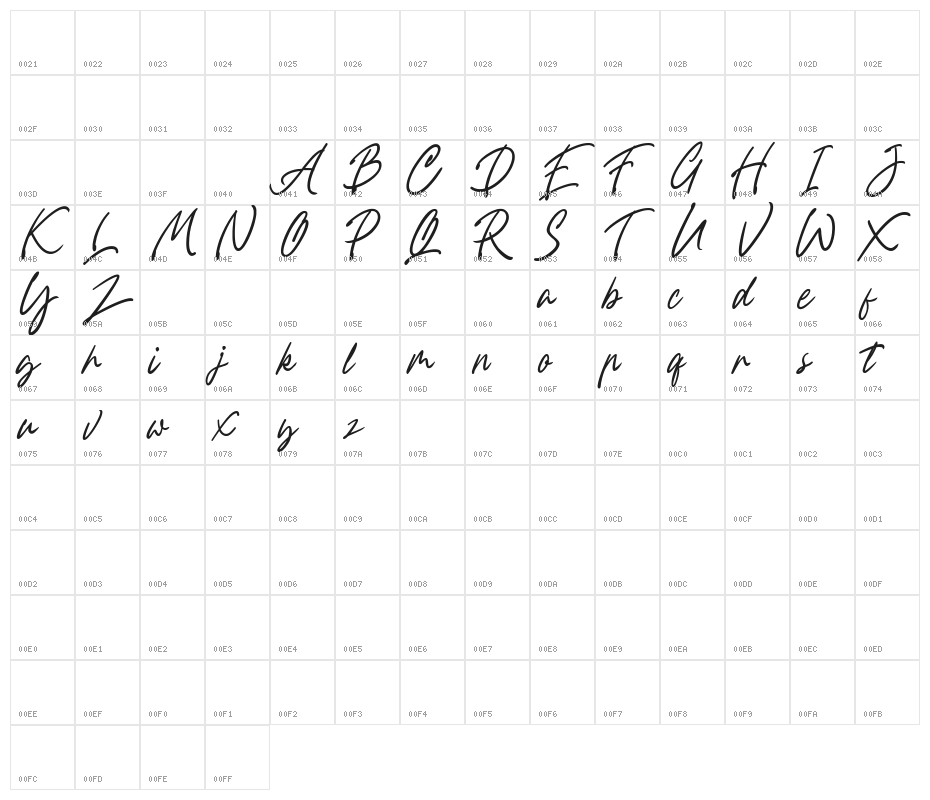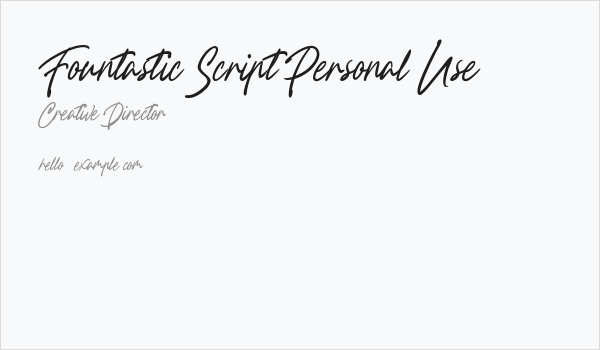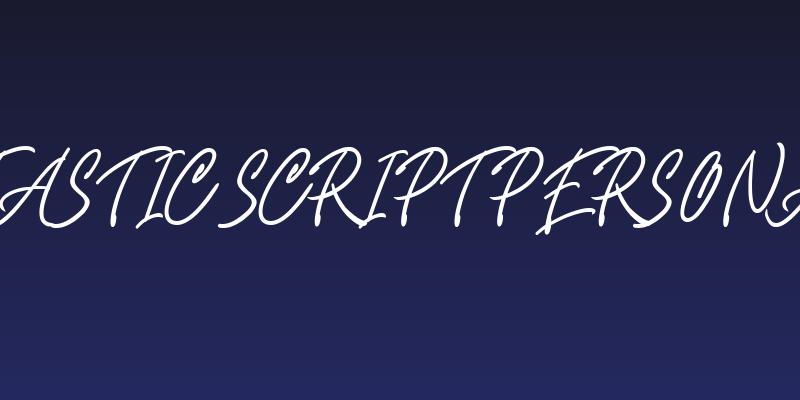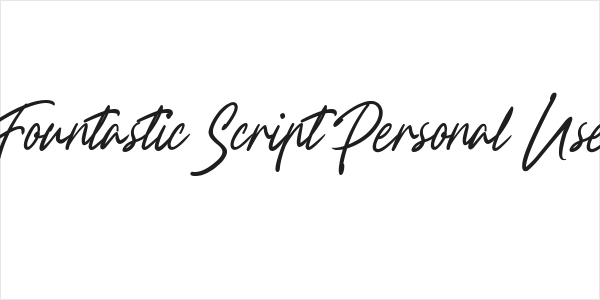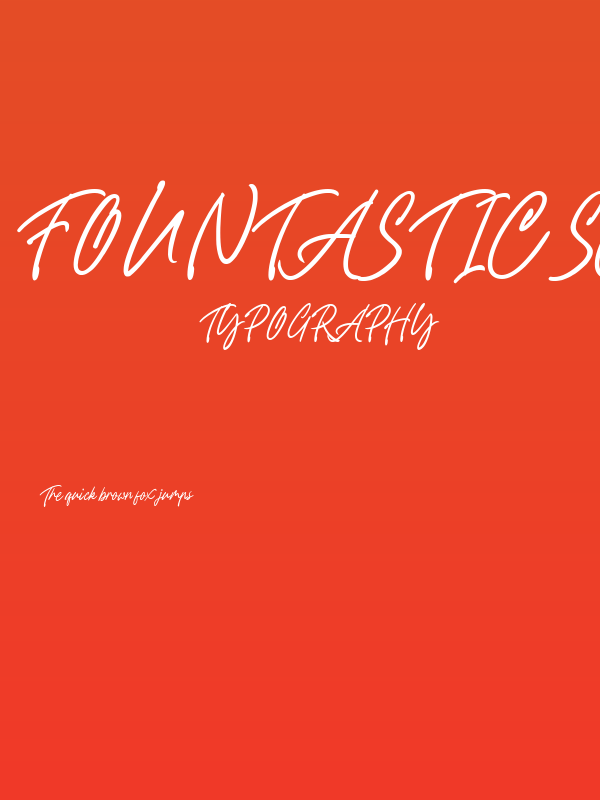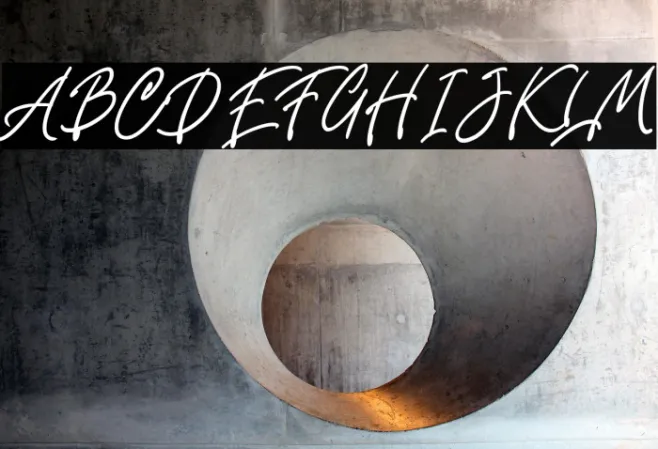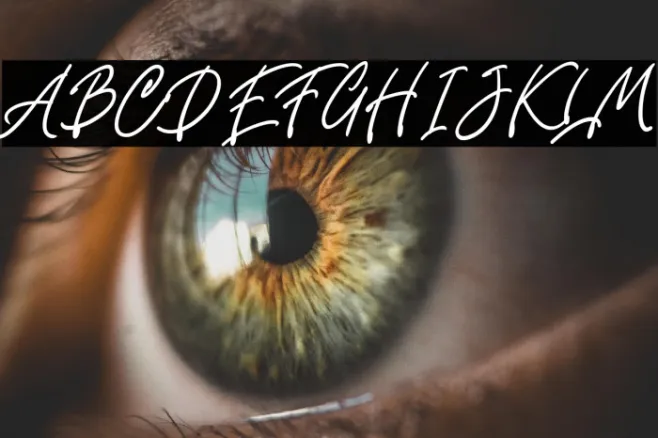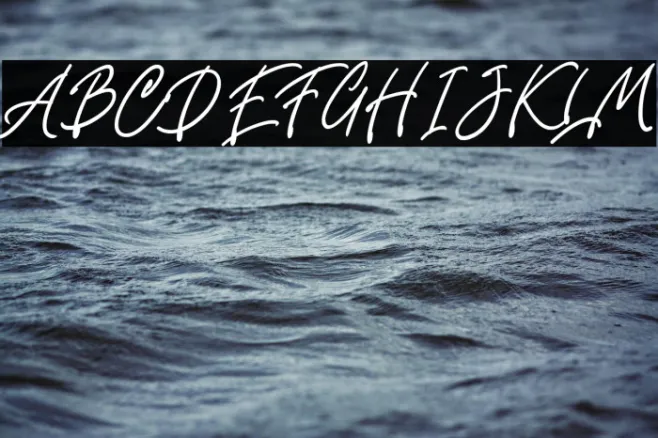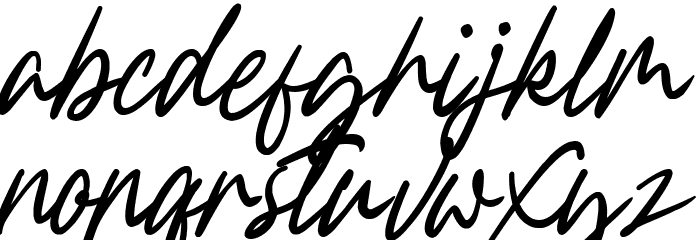
Fountastic Script Personal Use Font
Fountastic Script Personal Use Description
This font exudes a lively and dynamic energy, characterized by its fluid and cursive script style. The letters are interconnected, creating a seamless flow that mimics natural handwriting. The strokes are smooth and slightly varied in thickness, adding a touch of elegance and sophistication. This font captures the essence of personal expression, making it ideal for projects that require a personal touch. Its legibility is maintained despite the artistic flair, making it suitable for both decorative and practical applications.
| Proposed Projects | Perfect for invitations, greeting cards, personal branding, and artistic projects. |